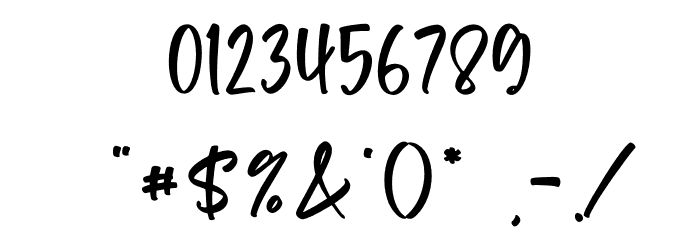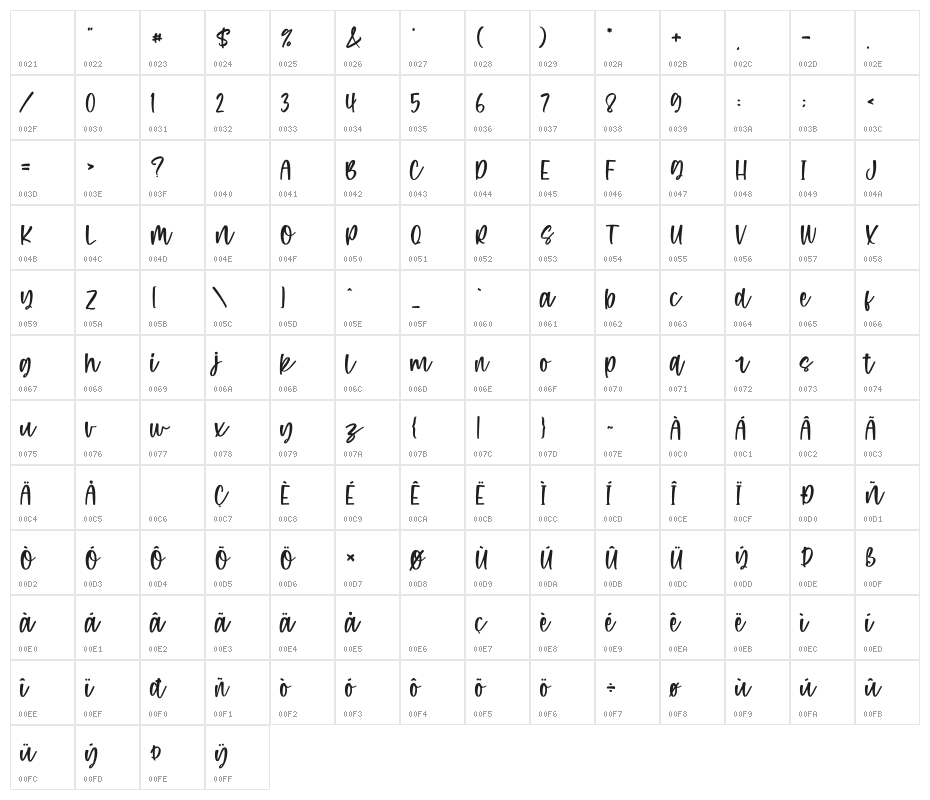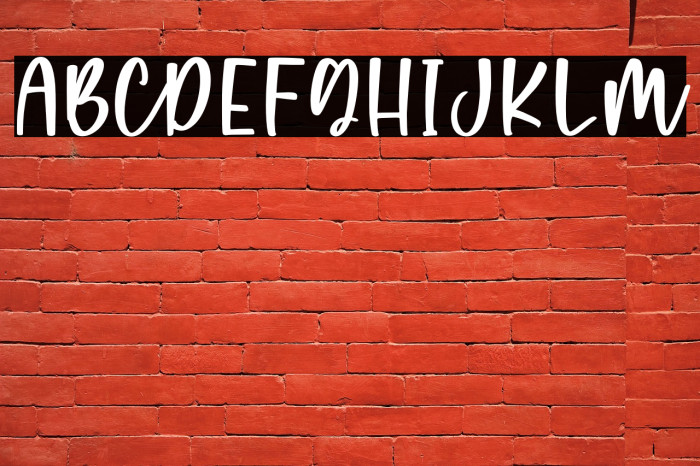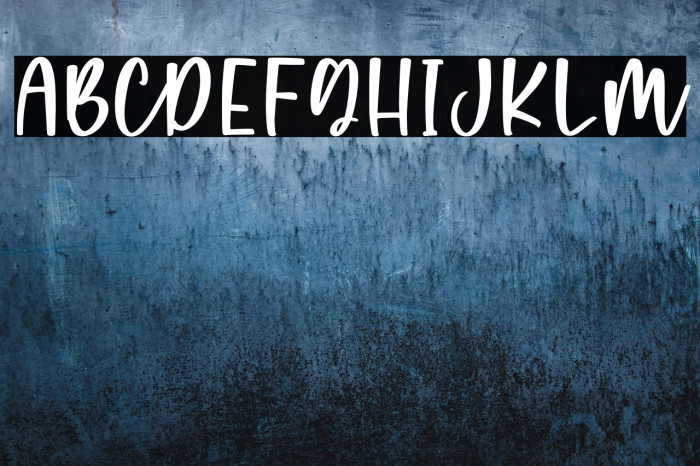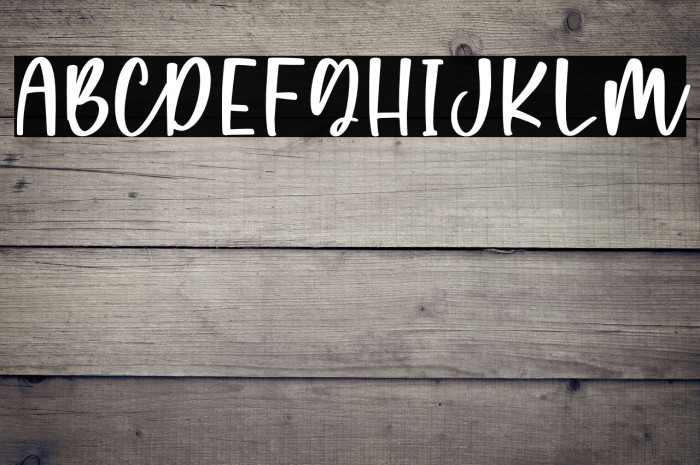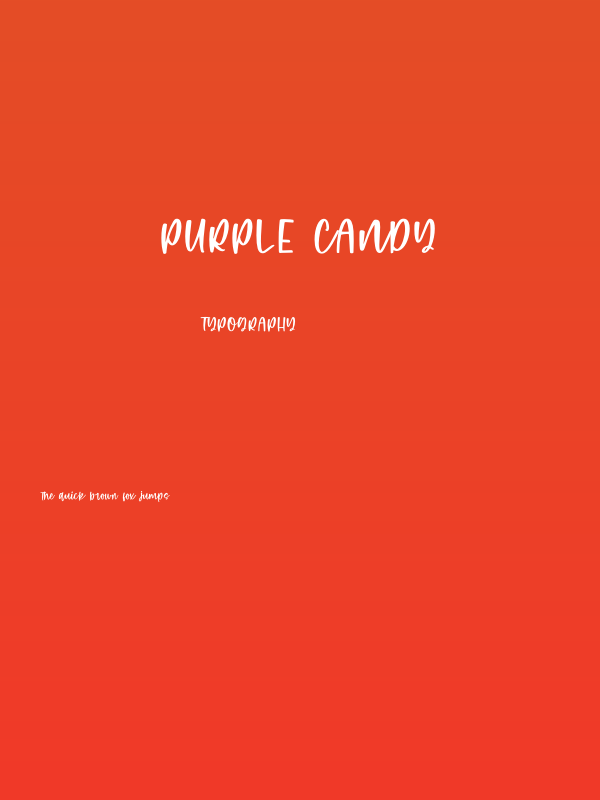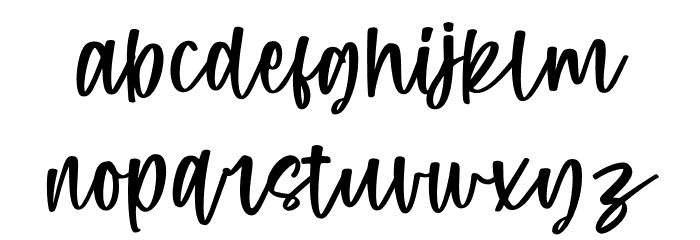
Purple Candy Font
Purple Candy Description
This font features a playful and energetic script style, characterized by its fluid and connected letterforms. The strokes are bold and expressive, giving a sense of movement and liveliness. The uppercase letters maintain a consistent height, while the lowercase letters have a slight slant, adding to the dynamic feel. The numbers and special characters are crafted with the same attention to detail, ensuring a cohesive look across all elements. The overall appearance is both modern and whimsical, making it suitable for projects that require a touch of personality and flair.